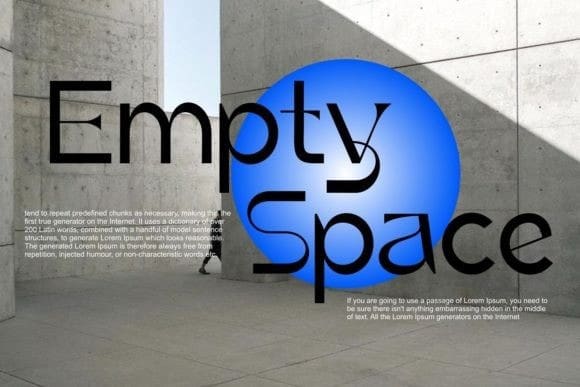
Korean Font
Korean Font, suitable for titles, logos and text. Its readability ensures clear yet attention-grabbing communication. Korean is the perfect choice for those looking for a typeface that embodies the Future and timeless sophistication.